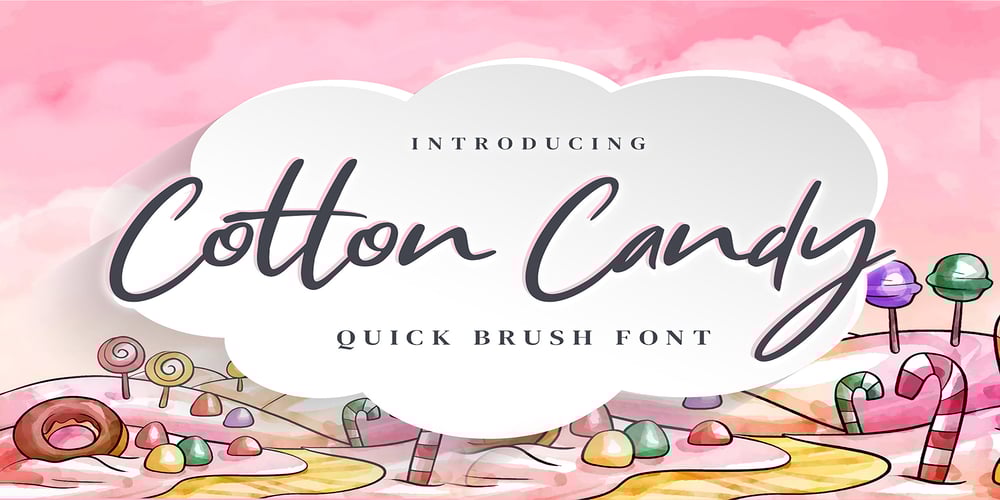
Cotton Candy Font Family was designed by Abdul Malik Wisnu, Anang Fibriyanto and published by Gassstype. Cotton Candy contains 1 styles and family package options. Hello Everyone, introduce our new product Font Cotton Candy it is Quick Brush Font.This is a Textured Natural Style and classy style with a clear style and dramatic movement.This font Cotton Candy is great for your next creative project such as logos, printed quotes, invitations, cards, product packaging, headers, Logotype, Letterhead,special events or anything that need handwritting taste.That is has charming, authentic and relaxed characteristic more natural look to your text. You can activate 17 Ligatures glyphs OpenType panel.